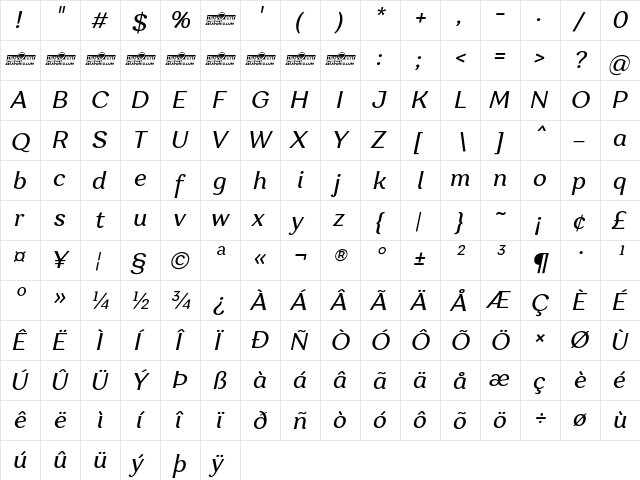
Garbata Trial Italic
| Foundry | Zetafonts |
| Designer | Francesco Canovaro, Debora Manetti |
Design Context for Garbata Trial Typeface
Garbata Trial takes a measured approach to typography — its balanced proportions and neutral character make it a reliable workhorse for both digital and print work. Its italic angle brings a sense of urgency and motion to the letterforms.